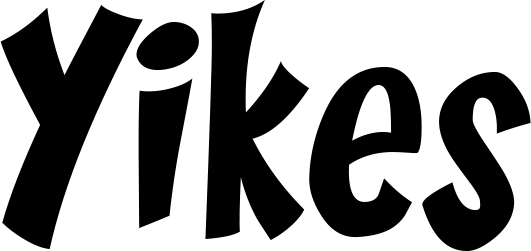
Yikes Font
Designed byRick Montgomery
Yikes font is one of the friendly and animated designs that will surely reach a significant child audience. This comic font will be one of the priorities for designing Halloween flyers, birthday themes, and many notebook covers. Put this kid font in your download list to create a toy package, and after that, you can see the miracle of sales.